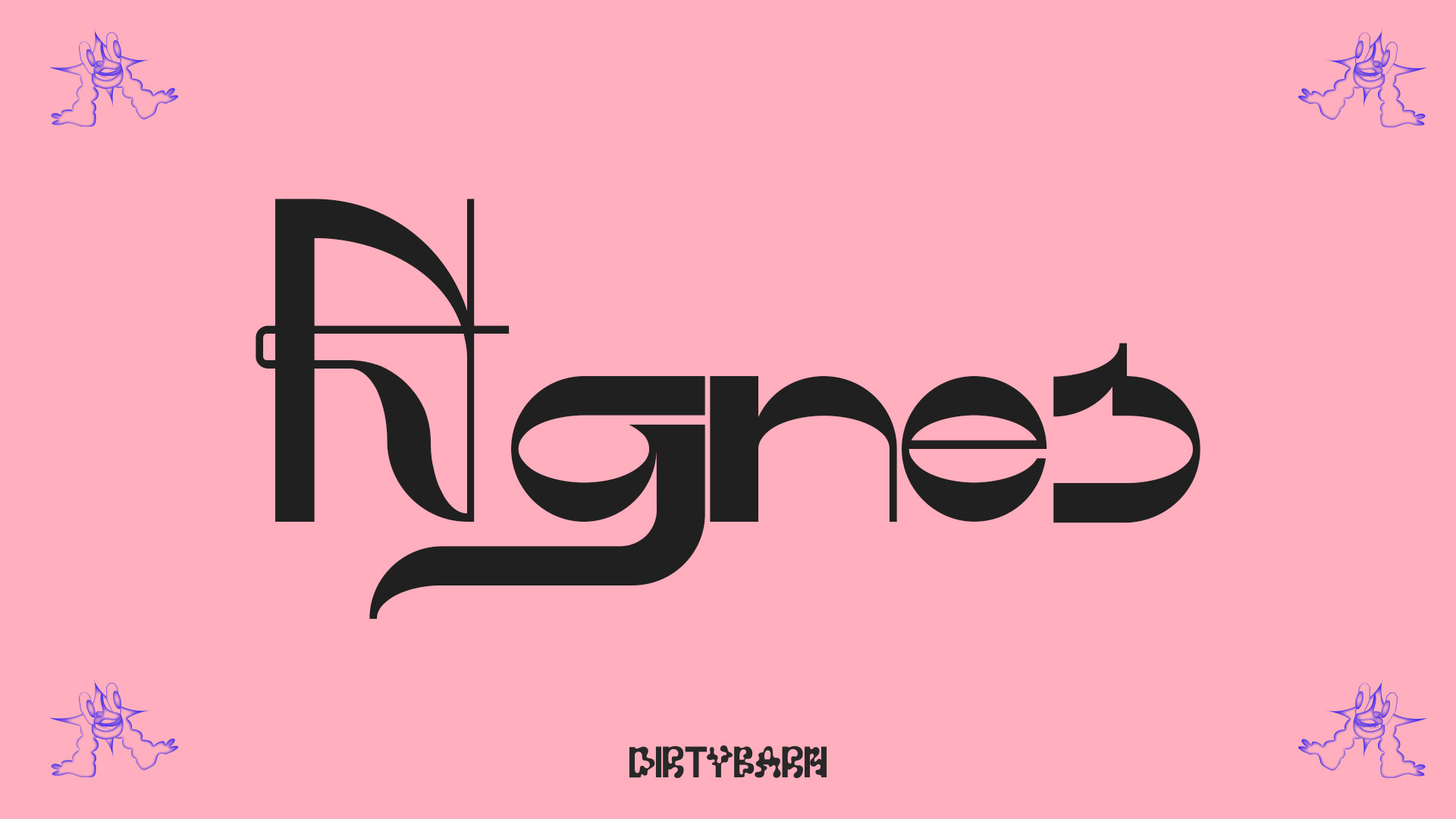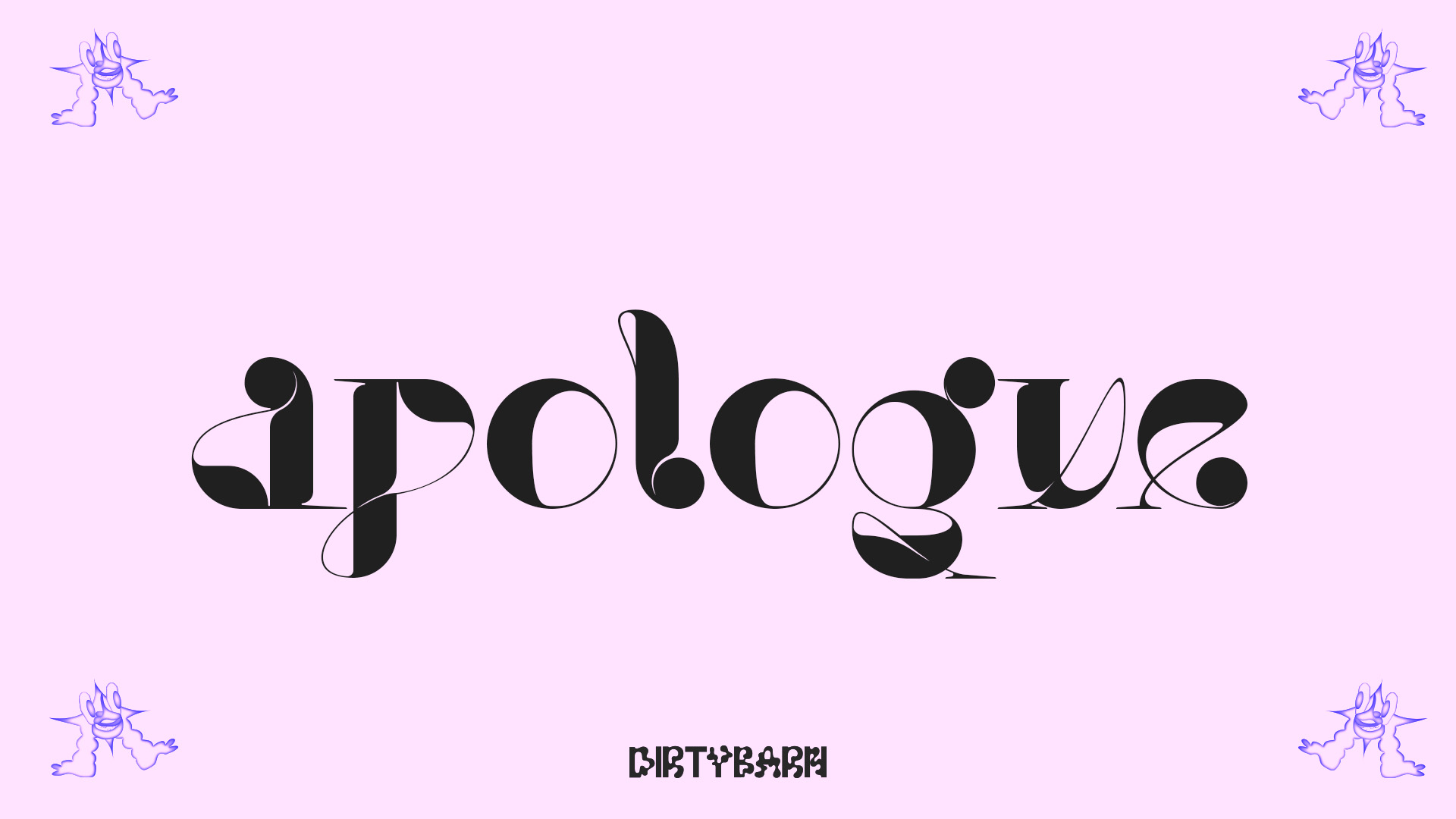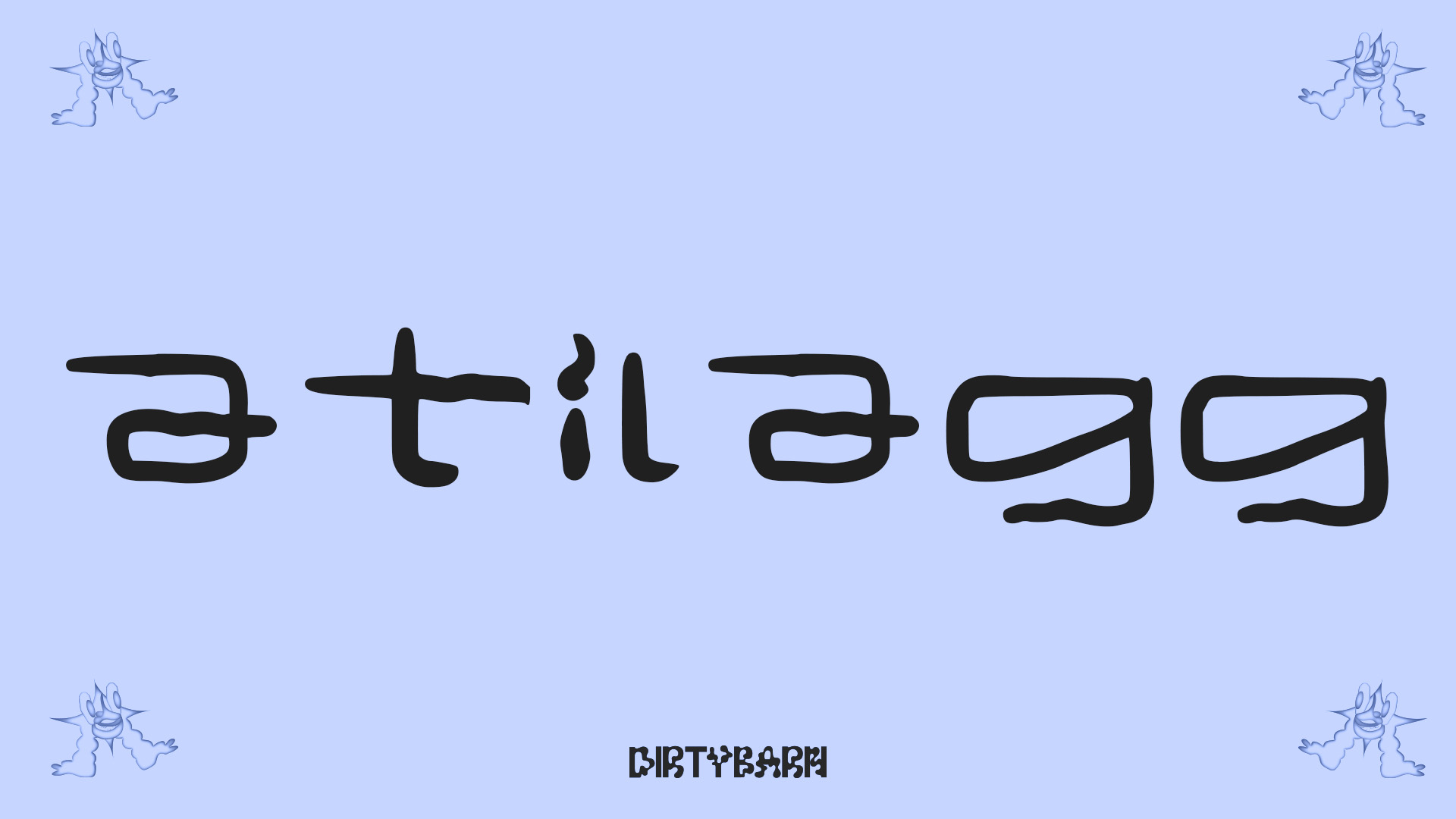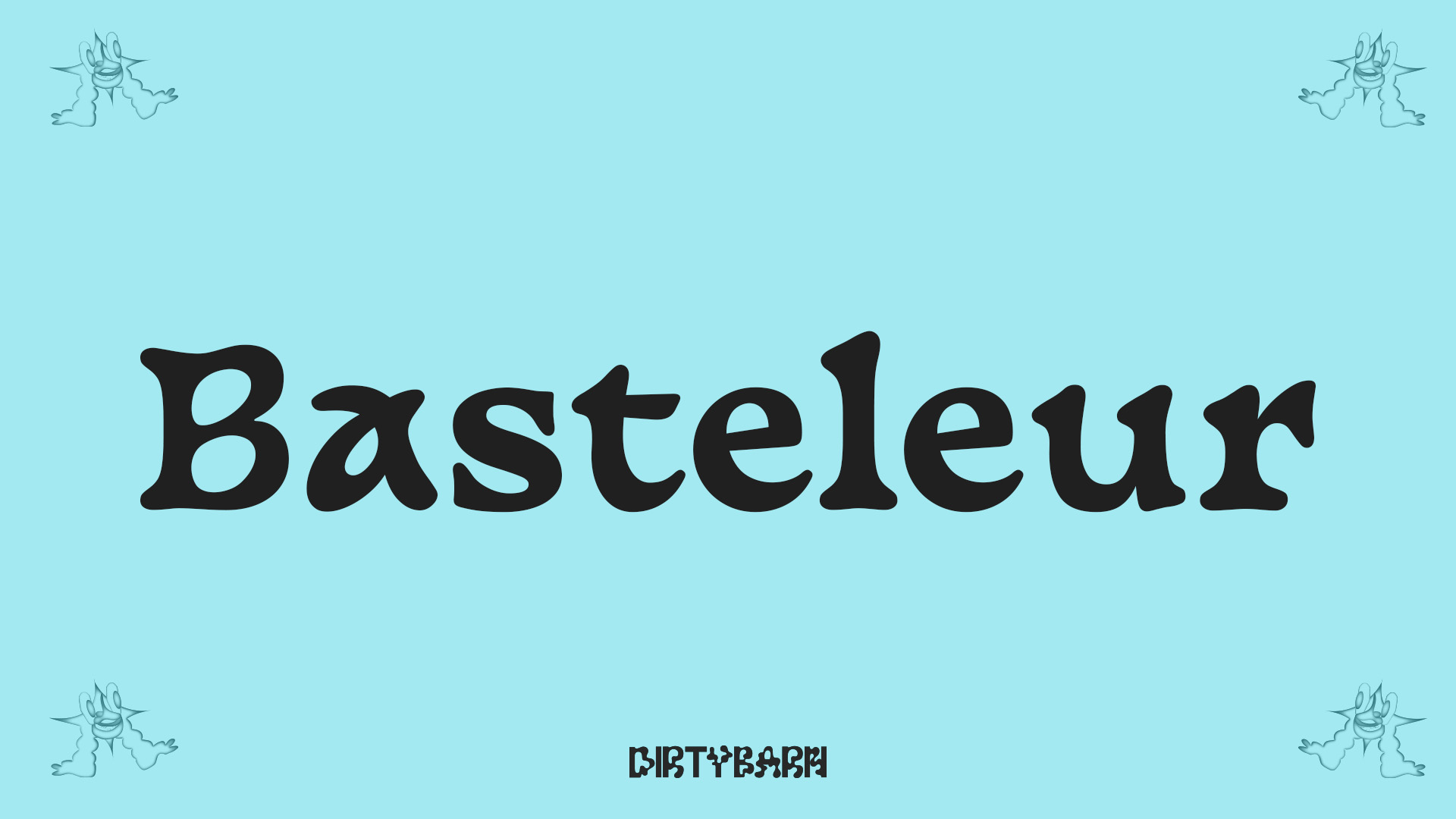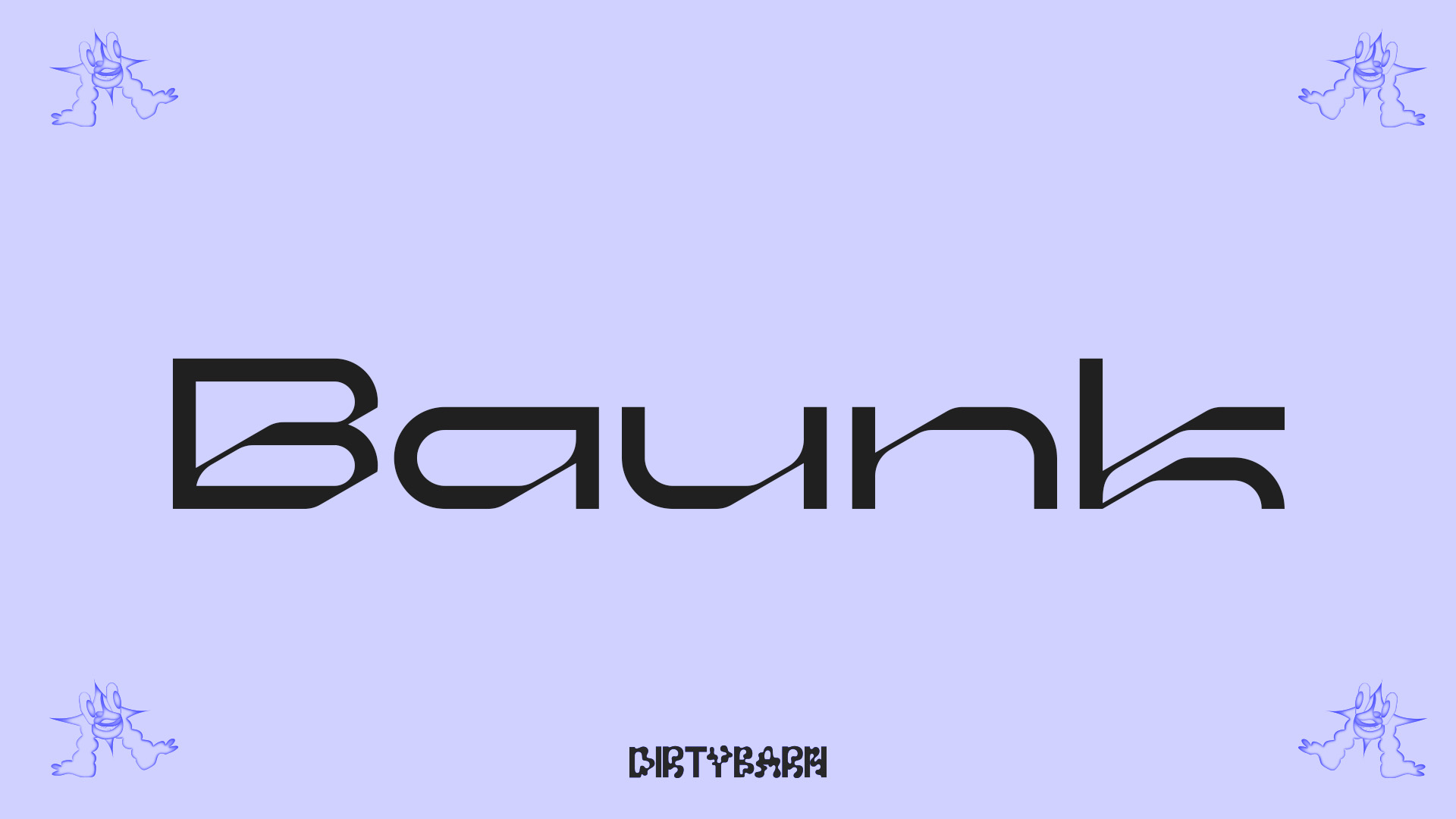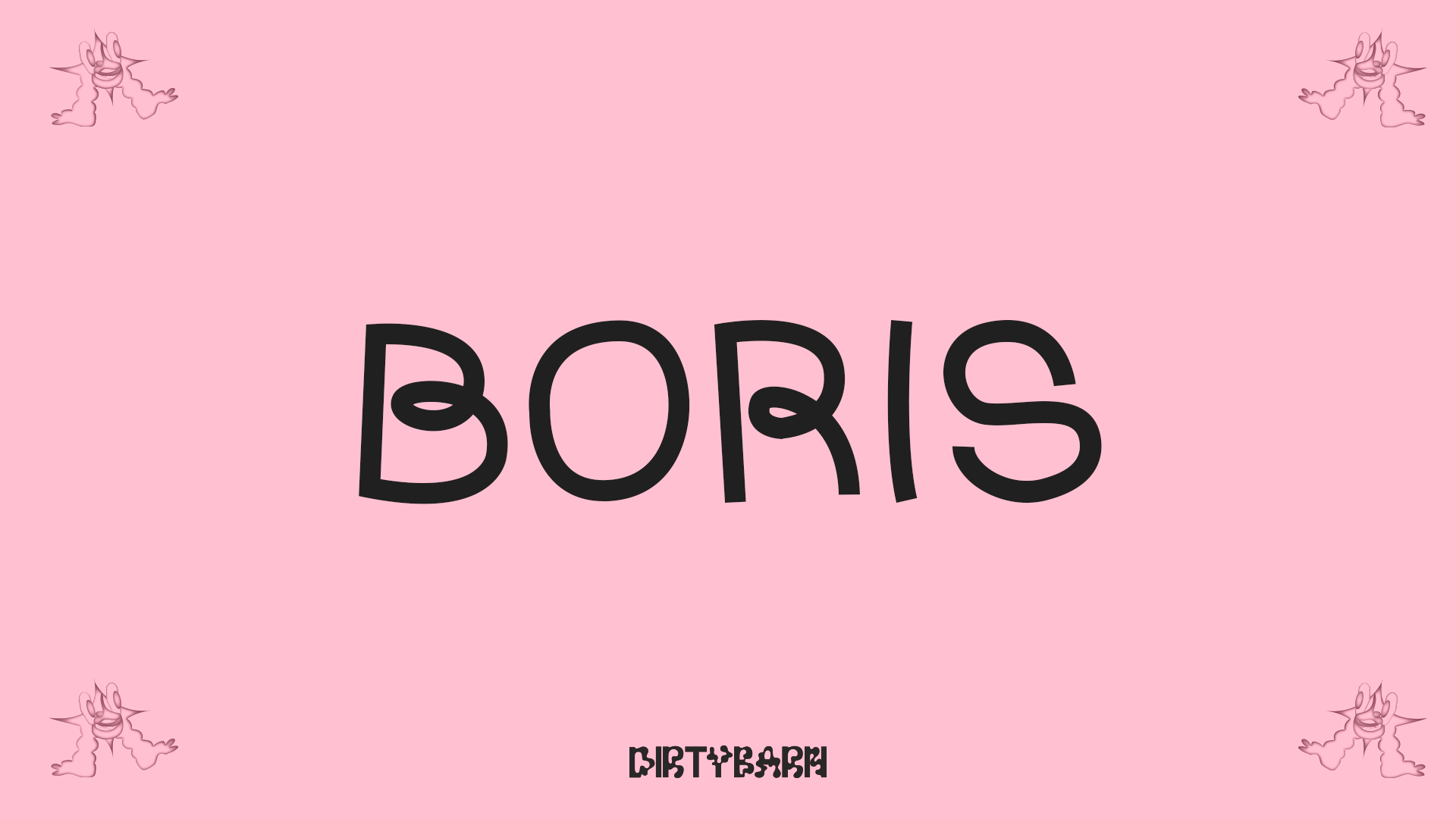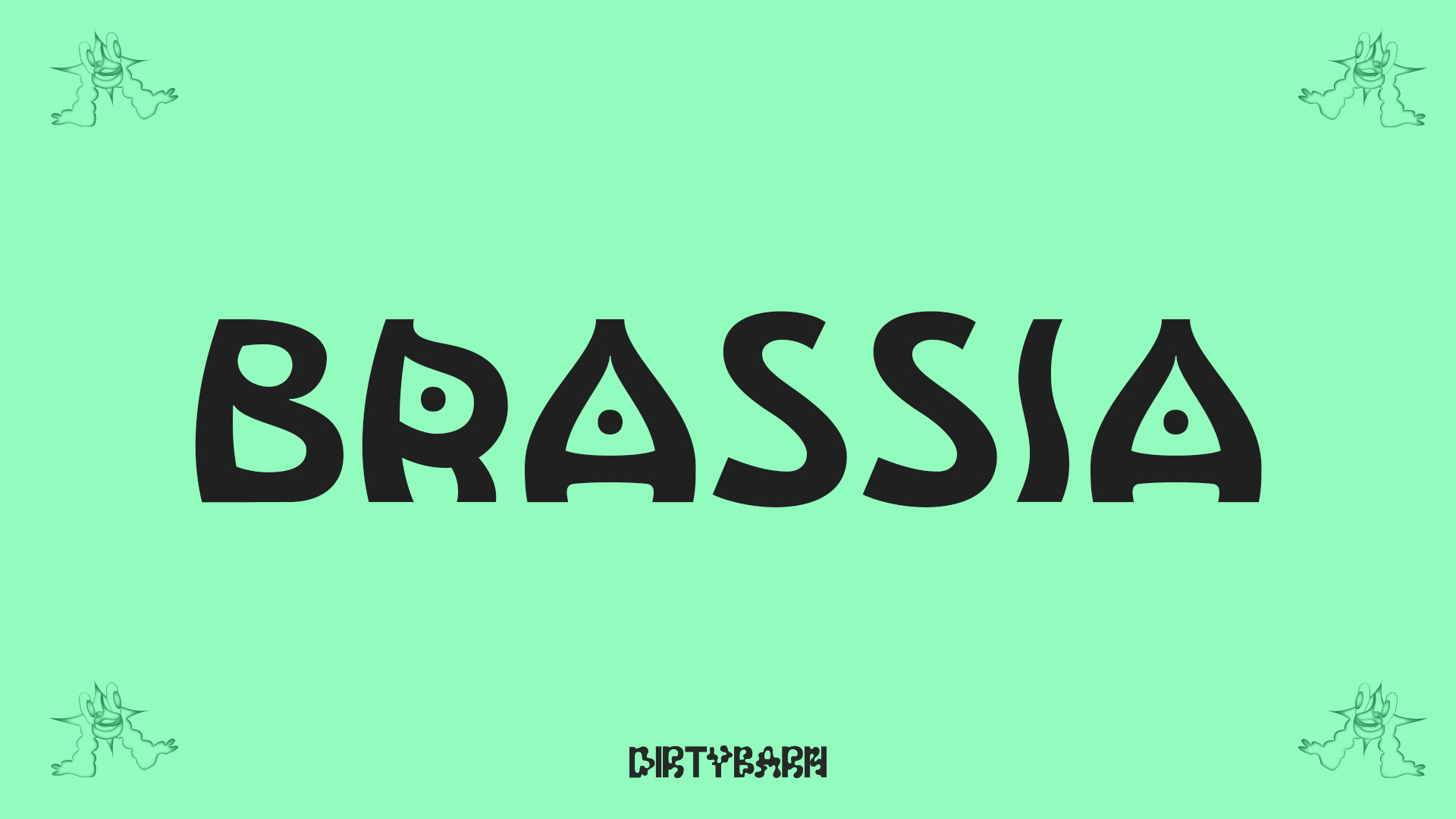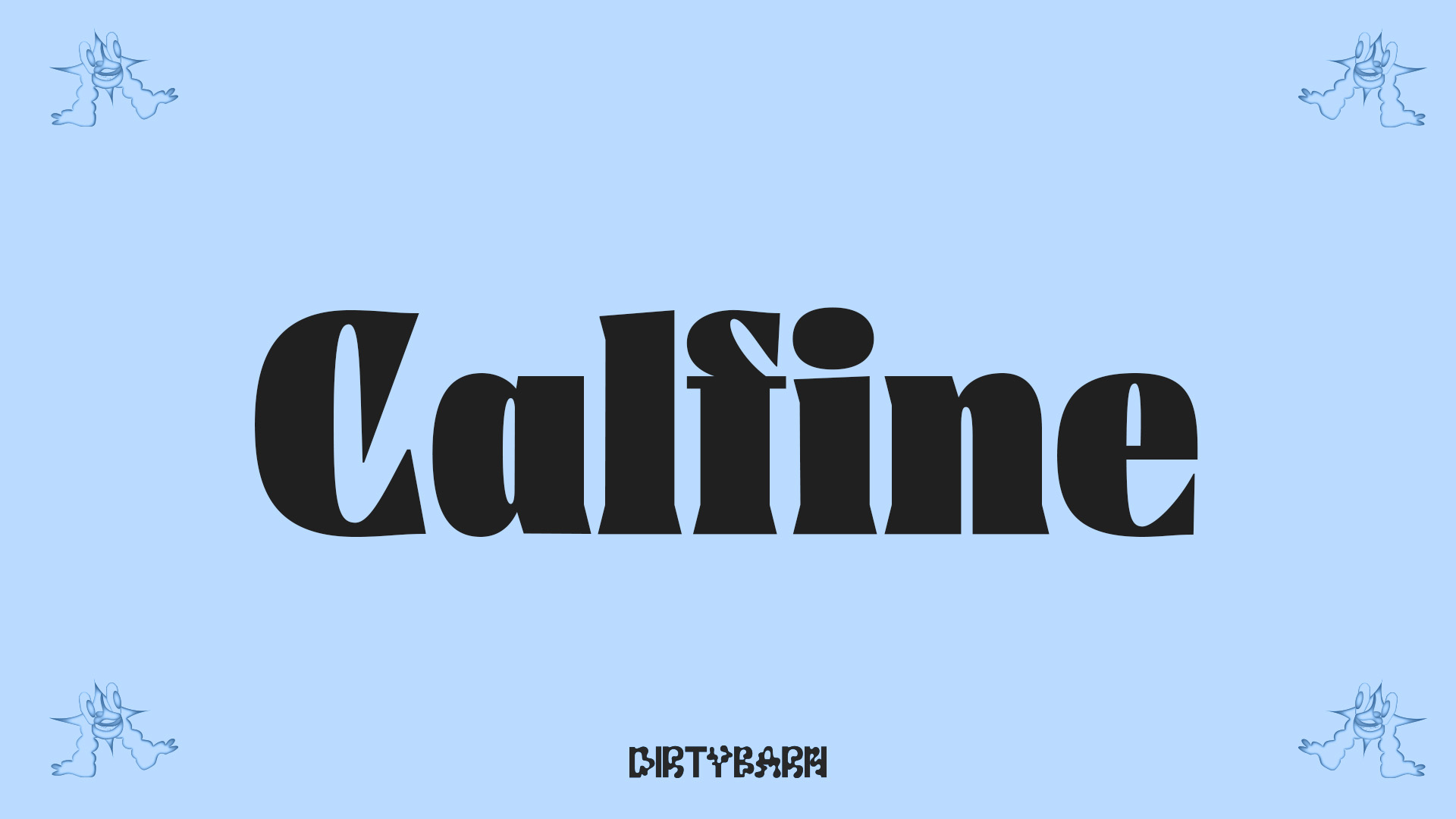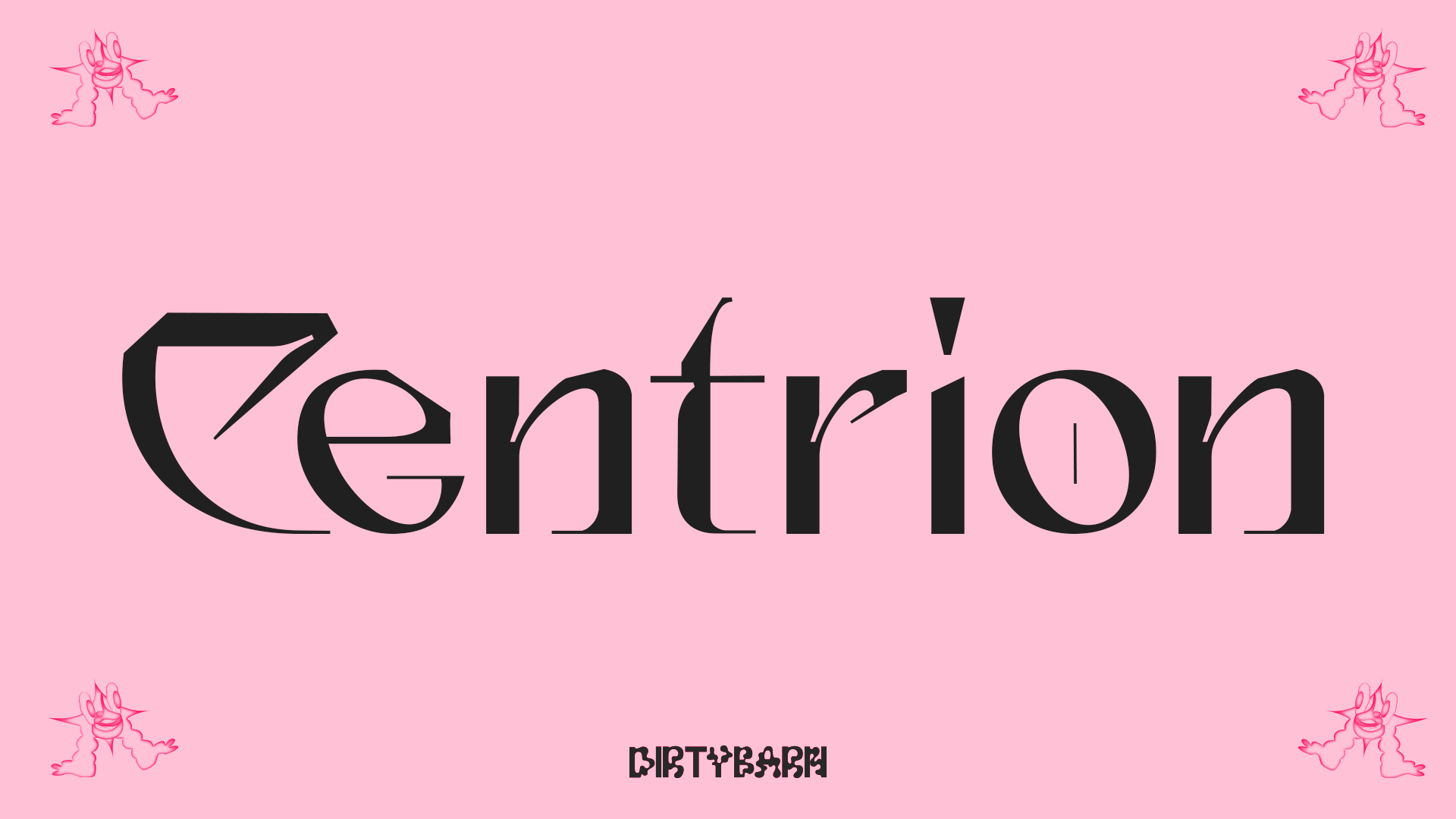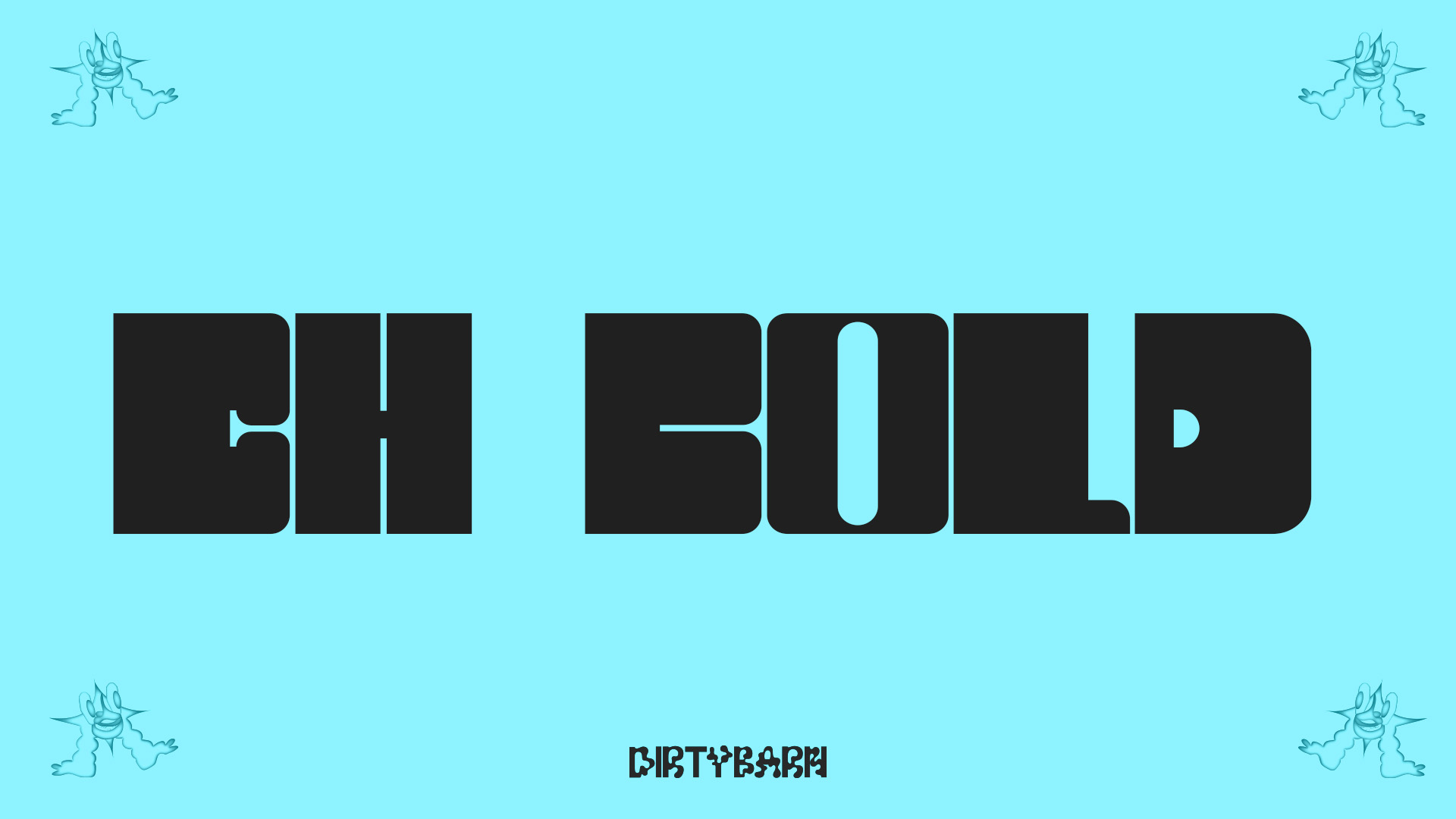
Typography plays a huge role in current design trends and aesthetic vision. Designers use typefaces and fonts in web design, illustrations, 3D projects as well as good old prints. Thanks to the latest progressive improvements on the web, such as Variable Fonts, FlexBox, CSS Shapes, CSS Grids paved new ways to work with typography on the web. And we collected the best free fonts that fit perfectly in your creative process in 2022.
Design aesthetics changes but in 2022 everything looks more abstract and interconnected. When musicians are working on new music, they always think about 15 sec snippets that might turn into a TikTok craze. Or writers have to use certain words and phrases in certain sections of the text, in this case is best free fonts. New tools and digitalization changes the way we operate. And designers also have to adjust themselves to these changes. But not everything is restrictive and oppressive. Some of the technological developments actually improve the quality of the creative process.
Best free fonts of 2022
1. Agnes
Agnes is a font created by Dominik Szabó. It is inspired by his own handwriting. It supports special characters, numbers and hungarian language too.
Apologue is a new font created by Phillip Block. This free font is a 1970’s-meets-art-nouveau display font, a lower case set with ligatures and punctuation
BAUNK is a new free sans serif font created by Reza Rasenda. Baunk is a futuristic modern font that features upper & lowercase characters, multilingual, numbers & punctuation.
Centrion is the new Futurism Typeface created by Dirtyline. inspired by visual of futuristic and techno-based design from the latest and upcoming trends.
Coconat is a two style non-conventional type family: a flared fair-proportioned regular style which changes its impact in the extended bold version completely. Coconat was created by Collletttivo.
Kobata is an experimental typeface, designed by Ariel Martín Pérez, based on some simple rules; firstly, the only possible shapes are rectangles and circles.
Secondly, rectangles can’t touch each other on their sides to create more complex shapes, they can only meet by their corners. Lastly, Circles are the only shape of which the size can be optically corrected by diverting from the 50*50 UPM grid.
After discovering Ange Degheest’s archives at the Rennes School of Fine Arts; Velvetyne decided to put together an exhibition that attempted to finally give the designer the full recognition she deserves. Louise created by Ange Degheest,Luna Delabre, Camille Depalle.
Malebolge is a typeface created by Ariel Martín Pérez, named after the eighth circle of Dante’s hell, which is reserved for minor fraudsters, and which is divided in ditches.
Maragsâ is a typeface created by John David Maza, that owes its form to one of the accent marks used as a guide to the correct pronunciation of Filipino words—the pakupyâ accent—whose tapered tips heralded the sharp edges, hastily-flowing strokes, and abrupt cuts in the characters, similar to the manner words with the stress should be spoken.
Marinford Display Font is a bold, unique, fashionable, luxurious, modern and elegant serif with lots of ties and alternatives that will make your presentation more amazing and stand out!. It’s designed and shared by Andika Fez.
Mazius is a high contrast serif typeface with old style proportions and a strong calligraphic feel. Influenced by chancery hands, it features two italics, each one with distinct personality. Mazius was created by Collletttivo.
The Monor is an attempt at typeface, created by Cédric Rossignol-Brunet which, through a systematic construction, tries to reconcile and bring together the trace of a calligraphic design with the rigidity of a monospaced typeface.
Newake Font is a sans-serif font made by the Indieground Team. The slightly rounded corners of the letters give an elegant line to your text and quotes. A font with a minimal atmosphere that will give a cool style and weight to all your artistic compositions.
This is a display font created by Dharmas Studio with sharp and beautiful letters that create fonts that are modern, trendy and elegant. It brings back the 70s vibes with a groovy, retro and unique typeface